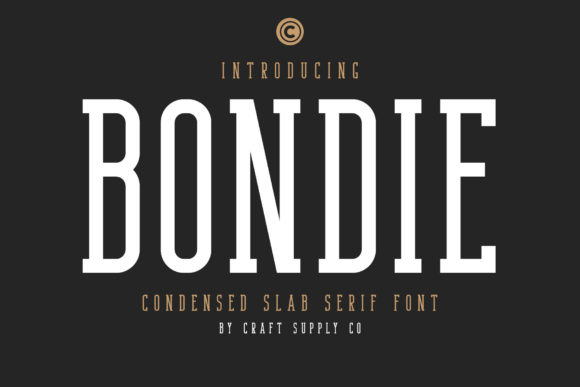
Introducing the Bondie Font - a versatile and elegant condensed slab serif that is perfect for all your creative projects! This font is a masterpiece created by craftsupplyco, and it features solid lines that make it stand out in any design.
The Bondie Font is a modern and sophisticated font that is perfect for creating eye-catching and captivating designs. It is a slab serif font family that is perfect for modern envelopes, hand-drawn watercolor designs, crafting, and any DIY projects. Whether you are looking to create a pop vintage design or a modern masterpiece, the Bondie Font is the perfect font for you.
This font is ideal for anyone who wants to elevate their designs and make them stand out from the crowd. Its condensed nature makes it perfect for designs that require a lot of text, while its solid lines ensure that it remains elegant and sophisticated.
The Bondie Font is a must-have for any designer, artist, or creative individual. Its versatility and adaptability make it perfect for any project, and it can be used for anything from logos to websites to product packaging.